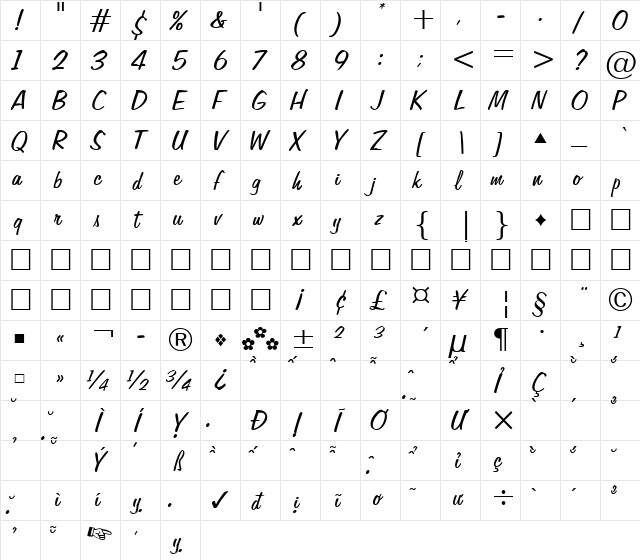
VNI-Freewrite Italic
Design Context for VNI-Freewrite Typeface
VNI-Freewrite takes a measured approach to typography — its balanced proportions and neutral character make it a reliable workhorse for both digital and print work. The dynamic lean of this cut emphasises speed and emphasis in any layout.
Pro Tip: Try VNI-Freewrite for annotation and caption copy alongside an upright companion — the contrast in angle creates a dynamic but ordered typographic system.